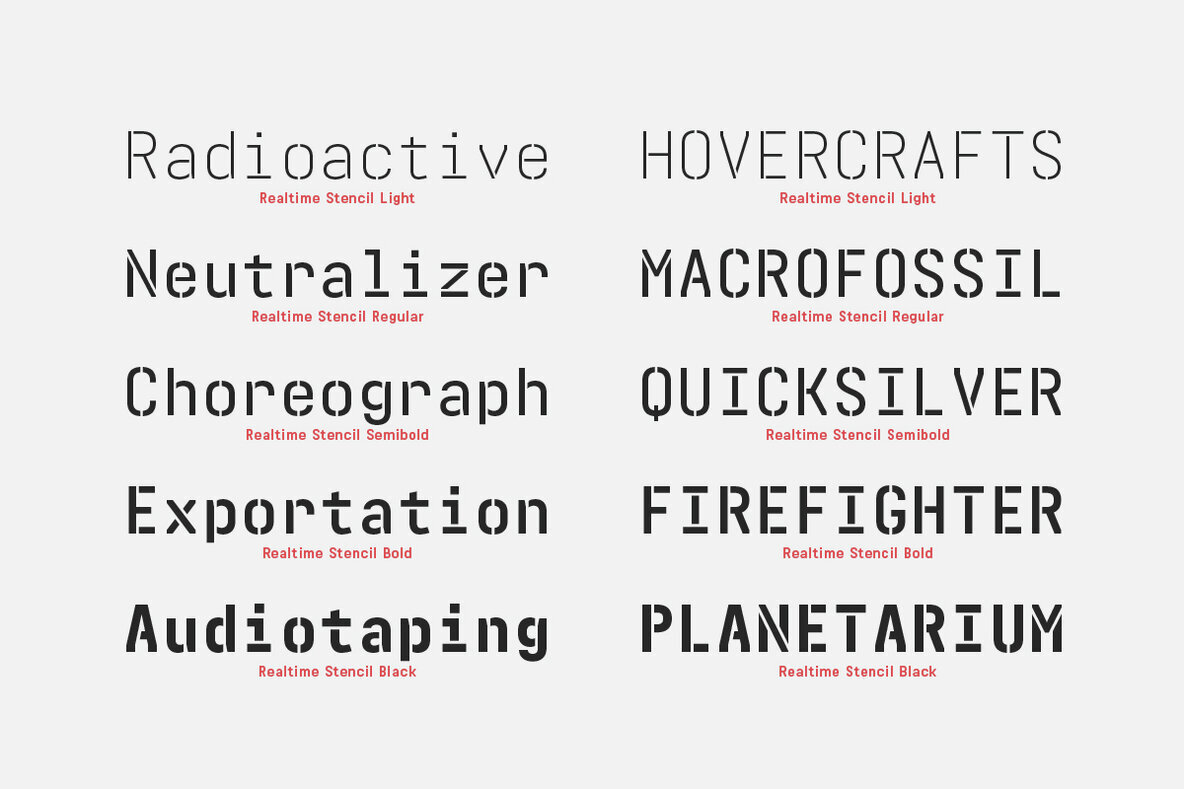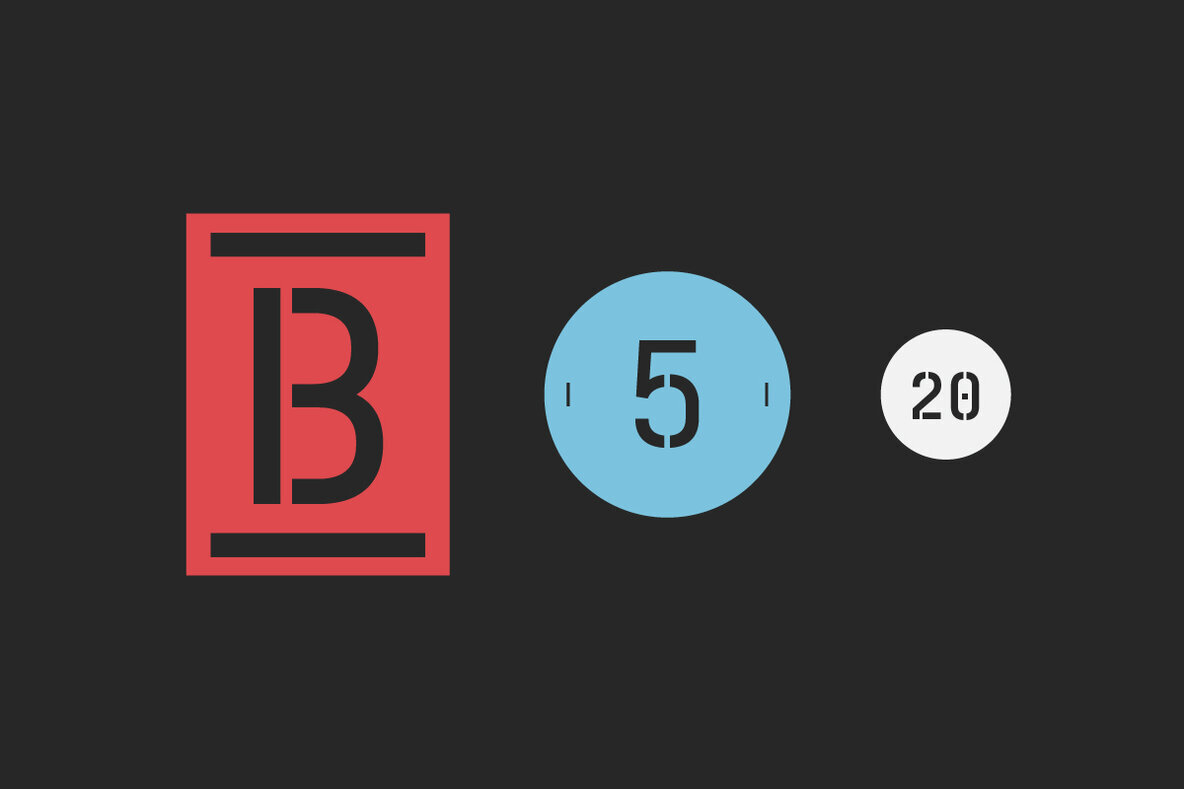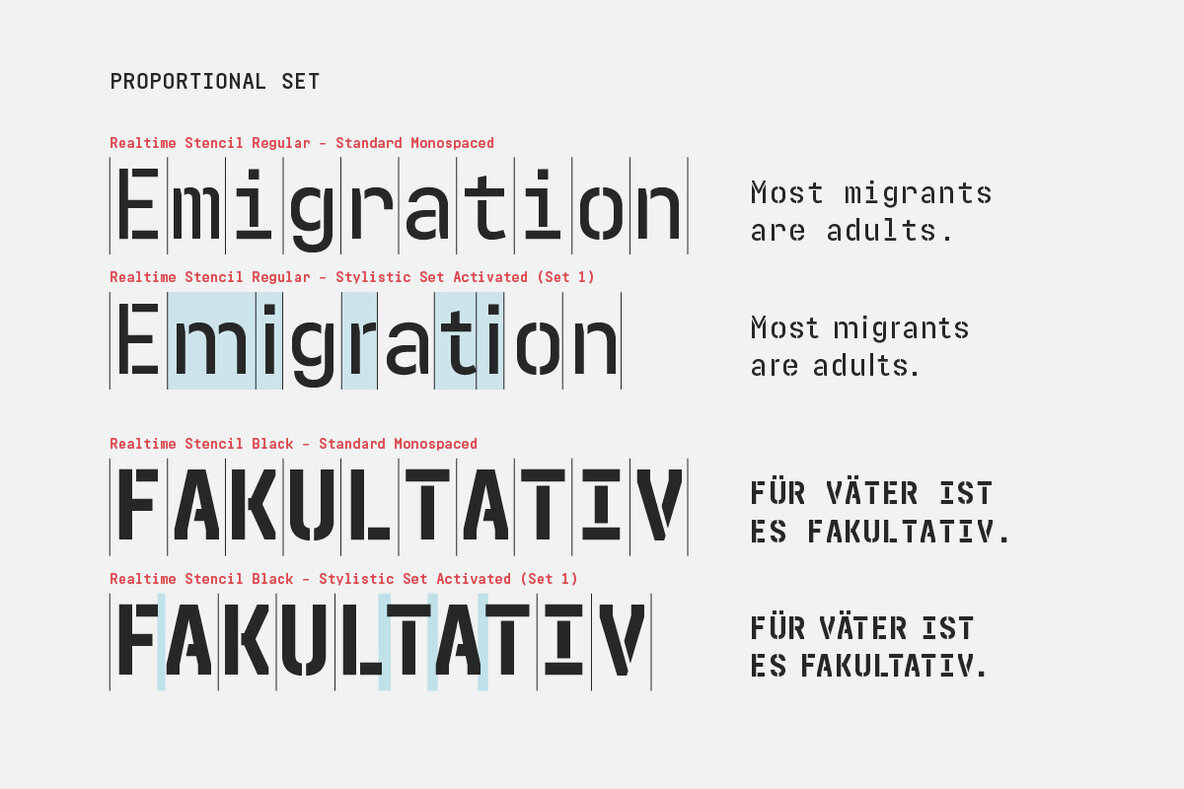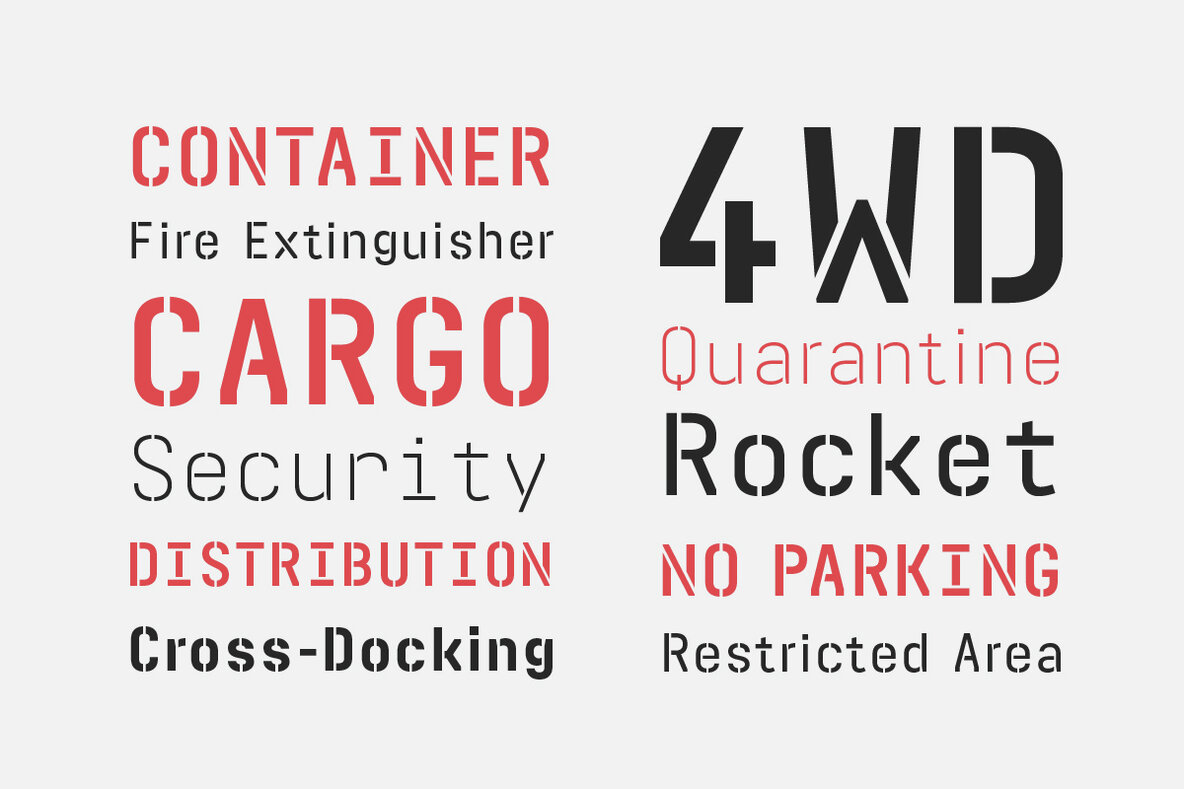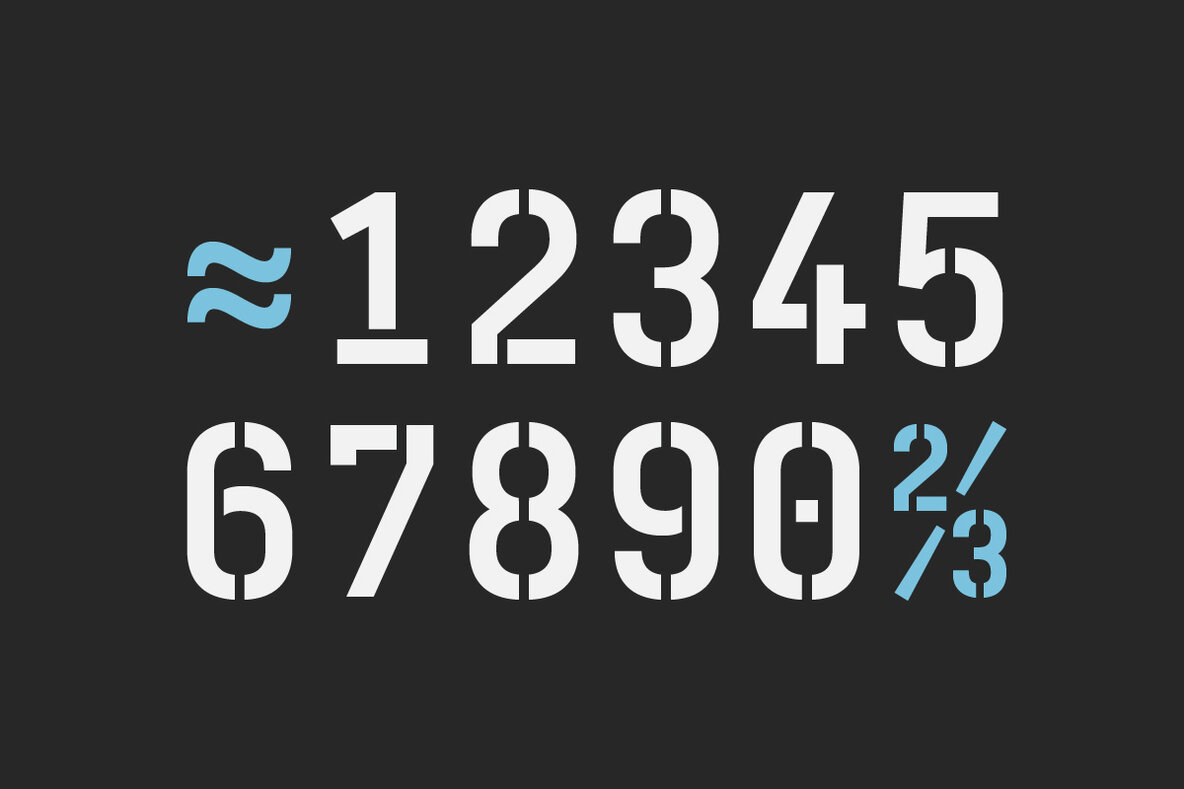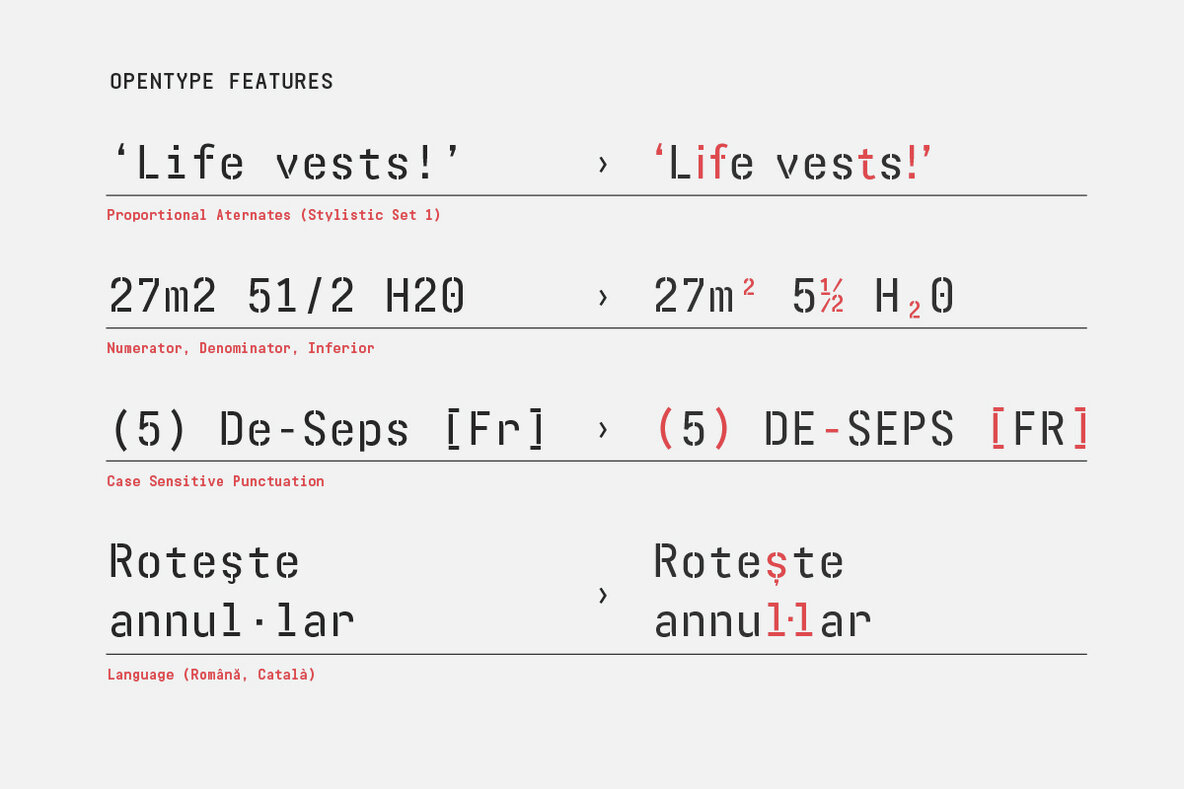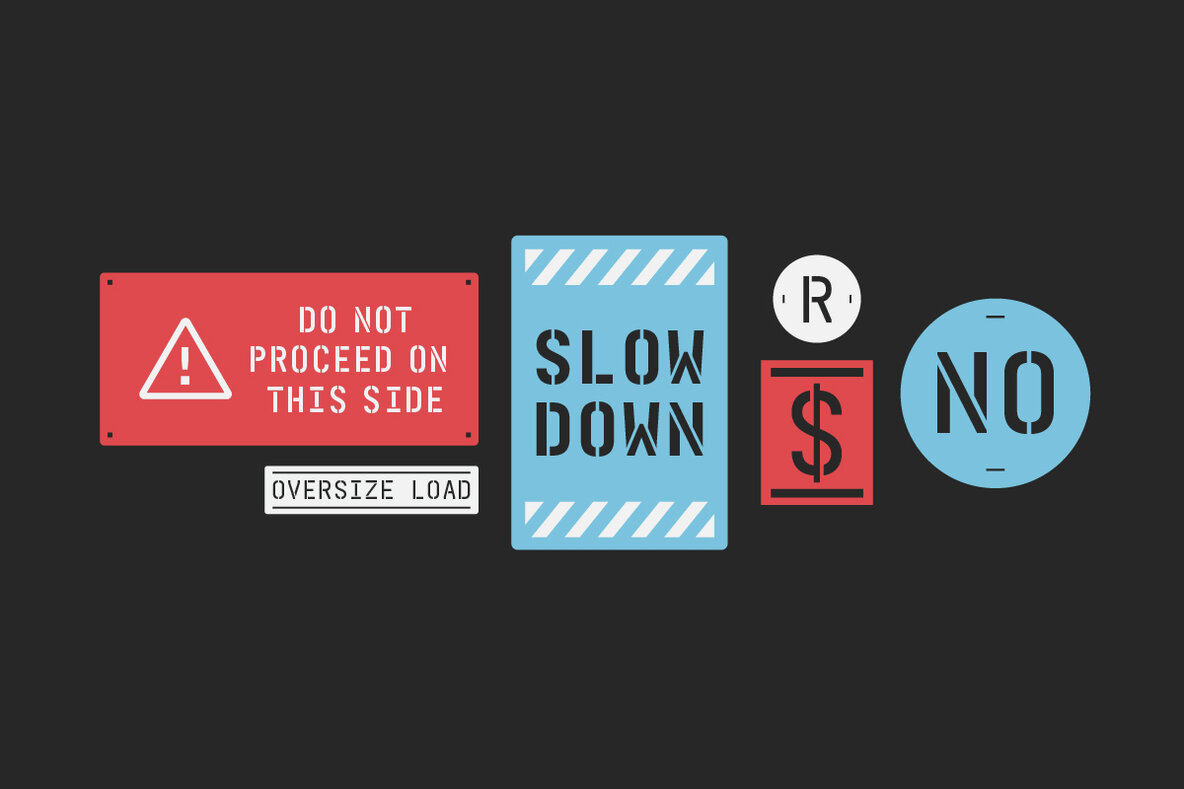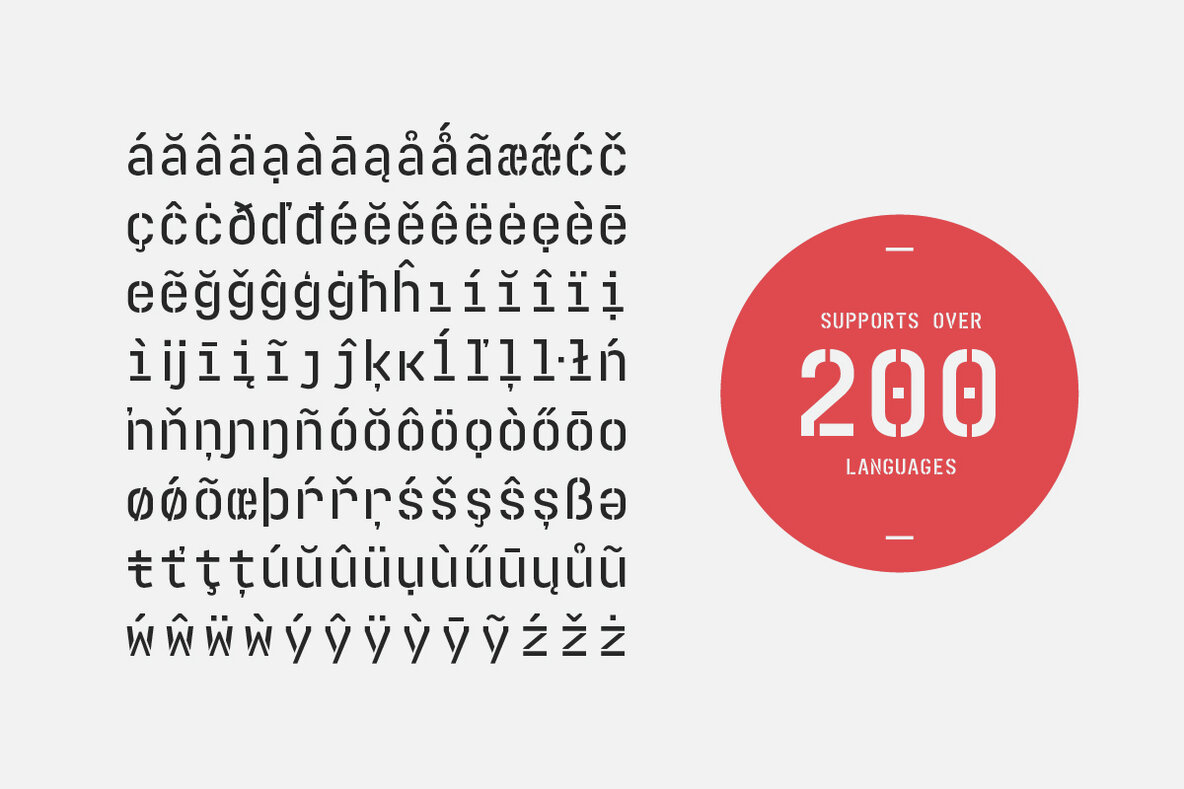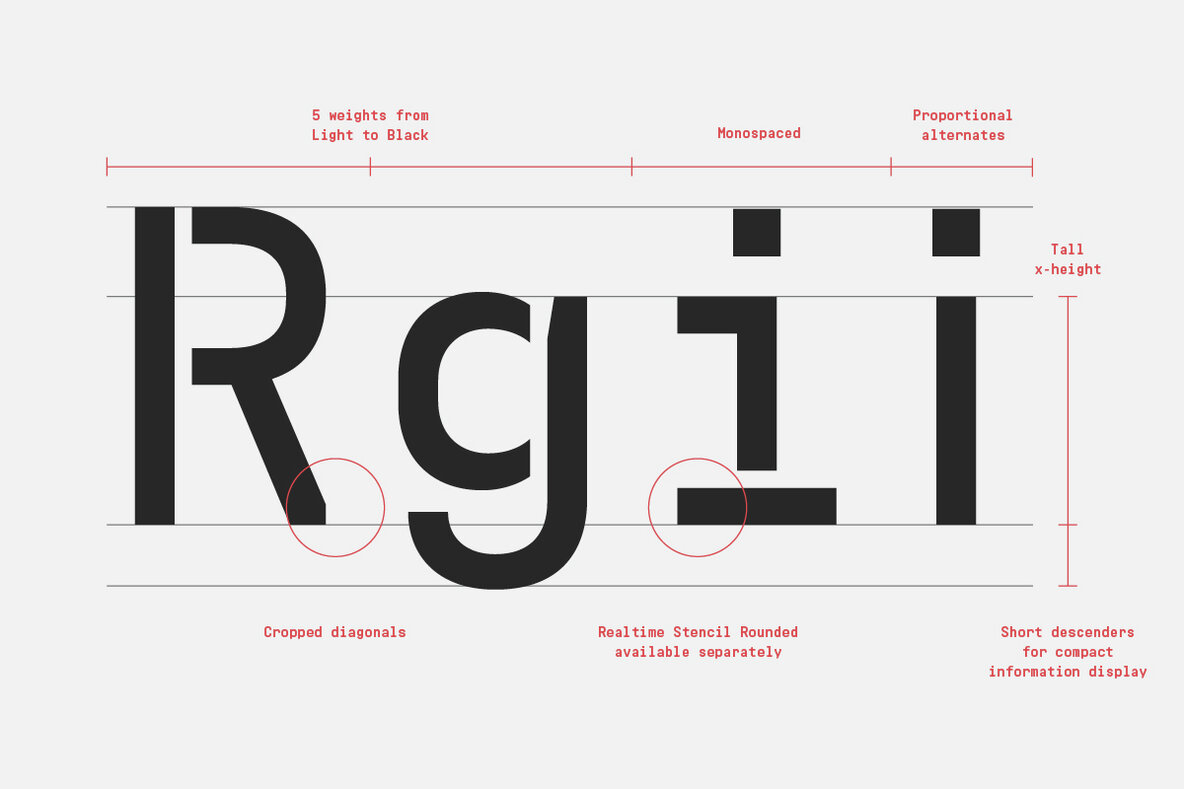
Realtime Stencil Font
Realtime Stencil is part of the Realtime type family which draws inspiration from information displays. The result is a technical yet friendly design with details that serve function and visual impact alike. As a monospaced typeface it lends itself to tabular designs, sturdy columns and tidy layouts. Nevertheless Realtime Stencil comes with a feature for setting continuous text — a proportional design employable through OpenType — it further comes in five weights, from light to black, and with a character set that covers over 200 latin languages.
A soft version of Realtime Stencil is available separately: Realtime Stencil Rounded.
Its soft edges apply warmth to the otherwise rather technical appearance.